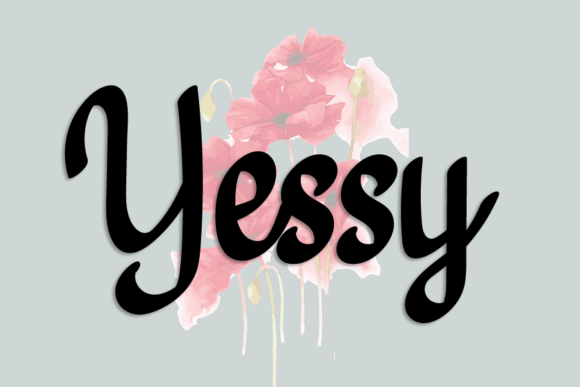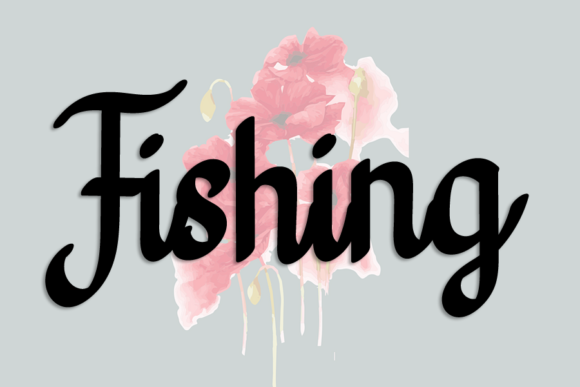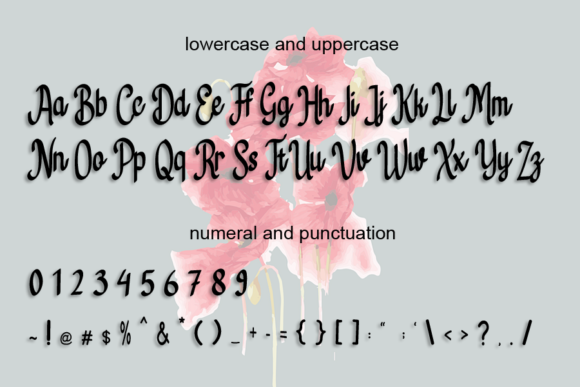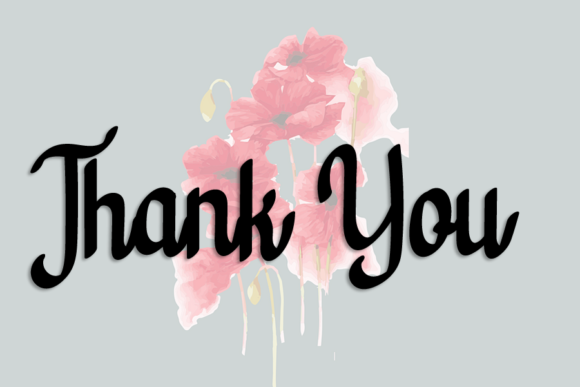
About Yolanda Font
Yolanda is a stunning work of art. This beautiful handwritten typeface is great for adding a personal touch to your designs. This stunning font looks great on branding materials, signs & invitations, business cards, and more!